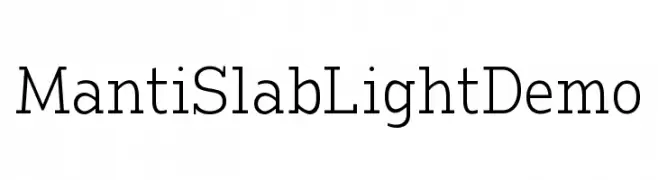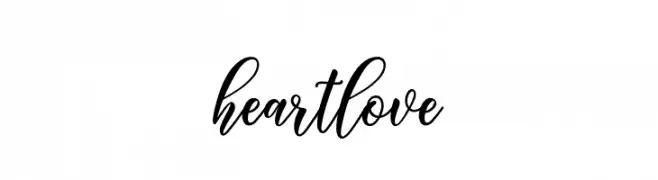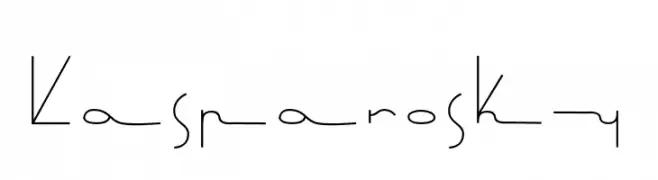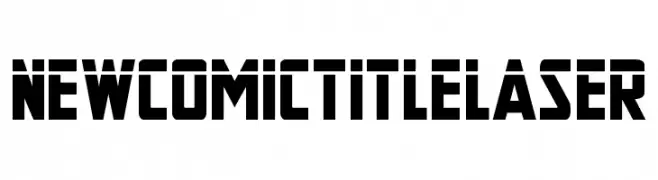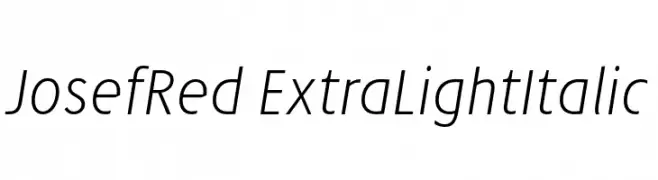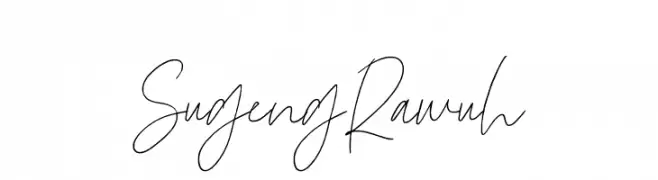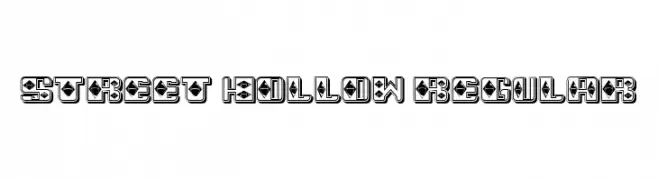
A modern slab serif font with geometric shapes and consistent strokes.
An elegant, flowing script font with cursive letterforms and graceful swashes.
A modern, geometric font with sharp angles and fluid lowercase forms.
A playful, handwritten font with tall, narrow letters and a casual style.
A bold, geometric font with a futuristic and structured design.
A sleek, modern font with a thin, italicized style.
A futuristic, geometric font with bold, angular shapes and three-dimensional effects.
A playful, heart-themed decorative font with bold, whimsical characters.
A cursive, handwritten font with a casual and flowing style.
A bold, decorative font with hollow interiors and intricate geometric patterns.